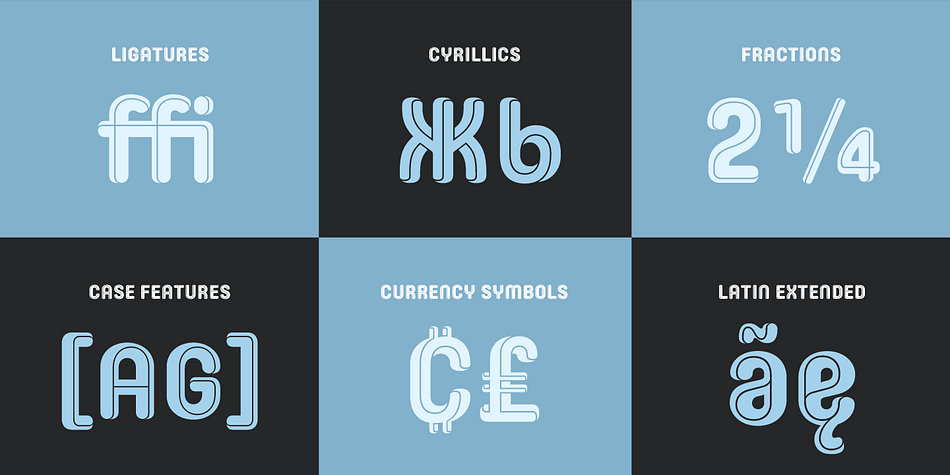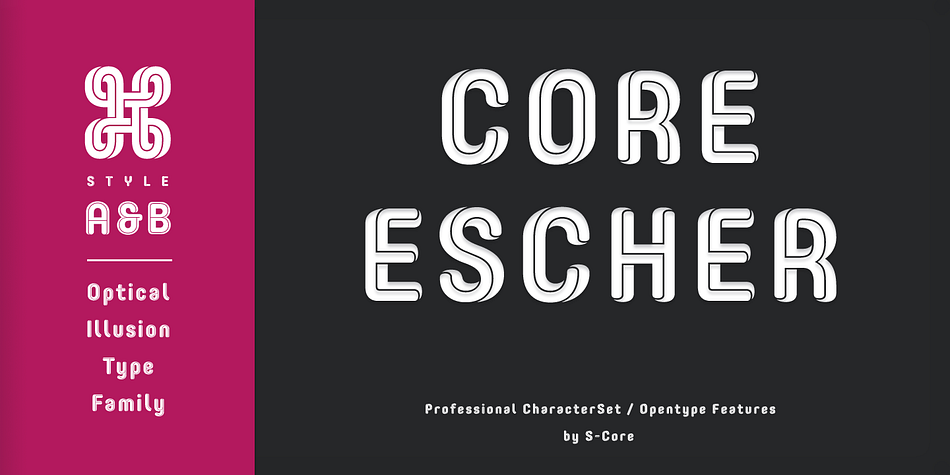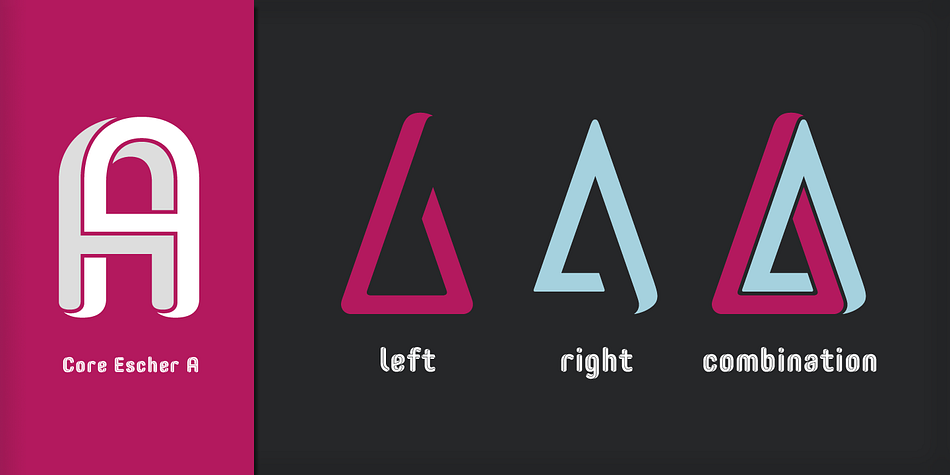
Core Escher
Core Escher is a display sans font family. This typeface has six styles and was published by S-Core.
Core Escher A has impossible shapes inspired by the optical illusion works of artist M.C.
Escher.
The letterforms in this type family are structurally twisted and complicated but it looks simple because of its simple strokes.
And for easy color variations, it split into two fonts, Core Escher A Left and Right.
Core Escher B has a different kind of optical illusion.
The letters of Core Escher B look like three dimentions by just putting thin lines on bold letters.
Also B has two sub-families that have different viewpoints.
Core Escher is an optical illusion type family which has two sub-families: Core Escher A and B. Core Escher A has impossible shapes inspired by the optical illusion works of artist M.C. Escher.
The letterforms in this type family are structurally twisted and complicated but it looks simple because of its simple strokes. And for easy color variations, it split into two fonts, Core Escher A Left and Right.
Core Escher B has a different kind of optical illusion. The letters of Core Escher B look like three dimentions by just putting thin lines on bold letters. Also B has two sub-families that have different viewpoints.
Core Escher Family supports complete Basic Latin, Cyrillic, Central European, Turkish, Baltic character sets. Each font includes proportional figures, tabular figures, numerators, denominators, superscript, scientific inferiors, subscript, fractions and case features.
This family is really nice for book titles, headlines, logotypes and any artworks.